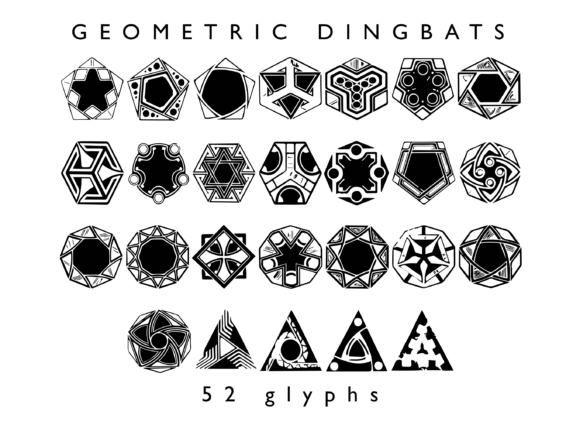
The Geometric dingbat font is the perfect way to add a touch of fun and uniqueness to your creative projects. Its geometric, decorative elements make it suitable for a wide variety of uses, from creating eye-catching banners to adding a touch of flair to your social media posts.
**Here are just a few of the ways Geometric font can help you make your projects stand out:**
- **Create custom banners and signs:** Geometric is perfect for creating custom banners and signs for any occasion. Its bold, geometric shapes are sure to get attention, and its dingbat elements can be used to add a touch of personality.
- **Add flair to your social media posts:** Geometric is a great way to add some extra flair to your social media posts. Its decorative elements can be used to create eye-catching borders, frames, and backgrounds.
- **Create unique logos and branding:** Geometric is also a great choice for creating unique logos and branding. Its geometric shapes can be used to create memorable and recognizable logos, and its dingbat elements can be used to add a touch of personality.
- **Make your projects stand out:** No matter how you use it, Geometric is sure to help your projects stand out from the crowd. Its unique and eye-catching designs are sure to make an impression.
**So, if you're looking for a font that's fun, unique, and versatile, then Geometric is the perfect choice for you.**